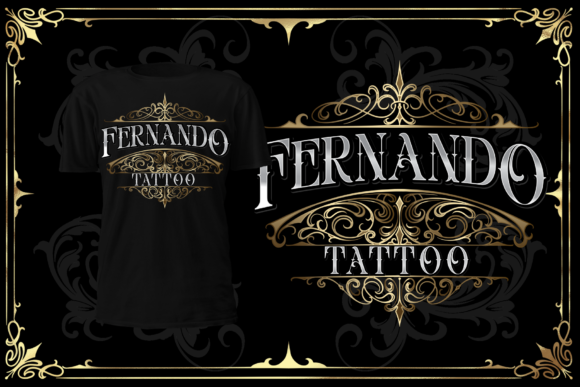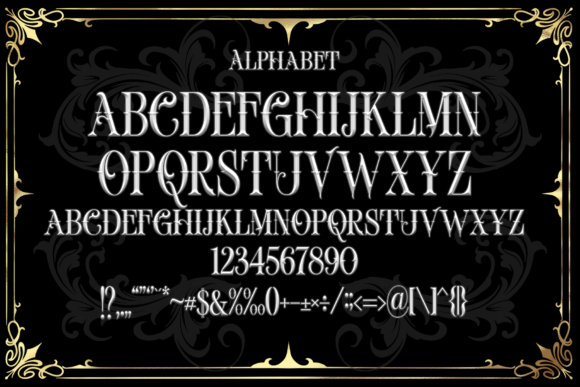
Roodriguez Font
Roodriguez is a stunning duo font (blackletter and dingbats). Combine the two to create the most impressive and bold designs that will stand out every time!